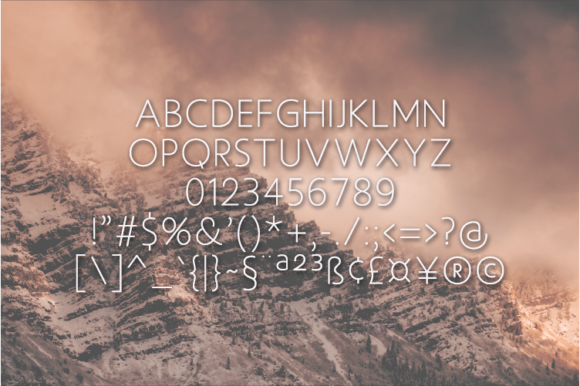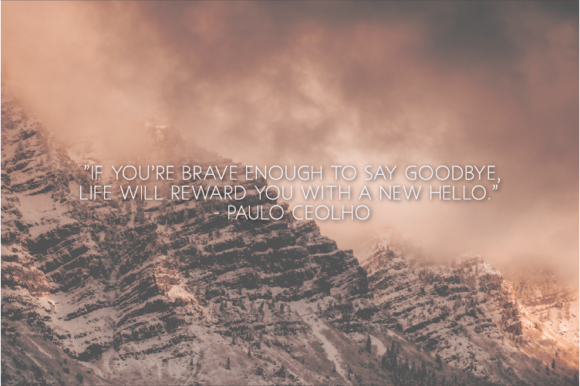
The Perfect Companion for Your Creative Projects
Have you ever found yourself stuck in front of a blank screen, staring at a blank document, and unsure where to start? This is a moment we’ve all experienced at some point in our creative journeys. But what if you had the perfect tool to bring your ideas to life?
Enter the Aleon Font, a simple and authentic sans serif font designed to complement every project you’re working on. Whether you’re creating displays, headers, invitations, or save the dates, Aleon Font is the perfect companion to elevate your designs. With its clean and elegant lines, this font is a valuable asset for designers looking to add a touch of sophistication to their work.
Aleon Font Key Features
- Font Family: Aleon is a sans-serif font family designed for digital interfaces.
- Unique Characteristics: Aleon features a clean, modern design with subtle rounded edges and a highly legible x-height, making it suitable for a wide range of digital applications.
- Font Style: Available in 5 font styles: Light, Regular, Medium, Bold, and Black, offering a range of weights for optimal typographic expression.
Aleon Font Review
Overall, I was impressed with Aleon Font’s modern and sleek design. ✨ The font’s clean lines and geometric shapes make it perfect for digital products, apps, and websites. Its versatility allows it to work well in various contexts, from tech and finance to healthcare and education.
- Legibility: Aleon Font is highly legible, even at small font sizes. ✨ The clear and concise letterforms make it easy to read, even for those with visual impairments.
- Consistency: The font’s consistent design language makes it a great choice for branding and identity projects. ✨ It’s also suitable for body text and headings.
- Neutral tone: Aleon Font’s neutral tone makes it suitable for a wide range of industries and use cases. ✨ It’s a great choice for those who want a clean and modern look without any strong emotional connotations.
However, there are some limitations to consider. ⚠️ One of the main issues is the font’s lack of expressiveness. While it’s great for digital products, it may not be the best choice for print materials or projects that require a lot of personality.
Another issue is the font’s limited support for non-Latin scripts. ⚠️ This may be a concern for projects that require multilingual support.
Overall, I would recommend Aleon Font for digital projects that require a clean and modern look. While it may not be the best choice for every project, it’s a great option for those who want a versatile and legible font.
Tips for Getting the Most Out of Aleon Font
Aleon Font is a versatile and modern font that can be used in a variety of contexts. Here are some tips for getting the most out of it:
- Use Aleon Font for headings and titles to add a touch of elegance to your design.
- Pair Aleon Font with other modern fonts to create a cohesive and stylish look.
- Experiment with different font sizes and styles to add visual interest to your design.
Alternatives to Aleon Font
Montserrat is a modern sans-serif font designed by Julieta Ulanovsky. It’s perfect for use in digital interfaces, logos, and branding materials. Montserrat is more geometric and clean compared to Aleon Font, making it ideal for modern and minimalist designs.
Inter is a sans-serif font designed by Rasmus Andersson. It’s a versatile font suitable for a wide range of applications, from body text to headlines. Inter is more elegant and refined compared to Aleon Font, making it ideal for high-end and luxury brands.
Open Sans is a modern sans-serif font designed by Steve Matteson. It’s a clean and legible font perfect for use in digital interfaces, signage, and other applications. Open Sans is more approachable and friendly compared to Aleon Font, making it ideal for everyday use and consumer products.